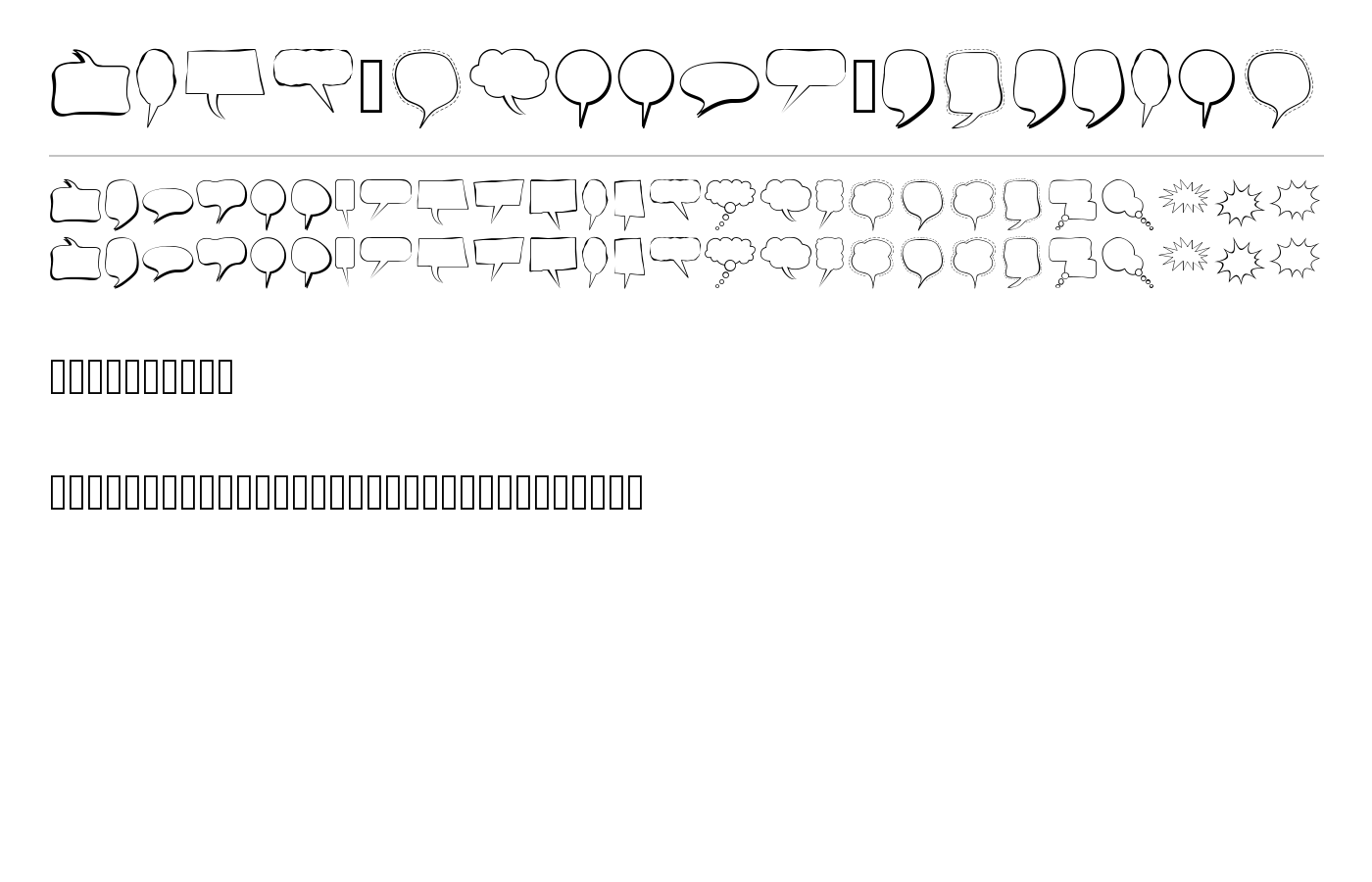
Alin Speech Bubbles Font is a playful and creative display font consisting of various hand-drawn speech and thought bubble shapes. Its organic, sketch-like strokes give it a casual, comic-style feel, making it perfect for comic strips, graphic novels, children's projects, and informal branding that aims to convey fun and conversation visually. This font works best where a lively and expressive communication style is needed rather than for body text or formal content.
Alin Speech Bubbles Font
About Alin Speech Bubbles Font
| Font family | Alin Speech Bubbles Font |